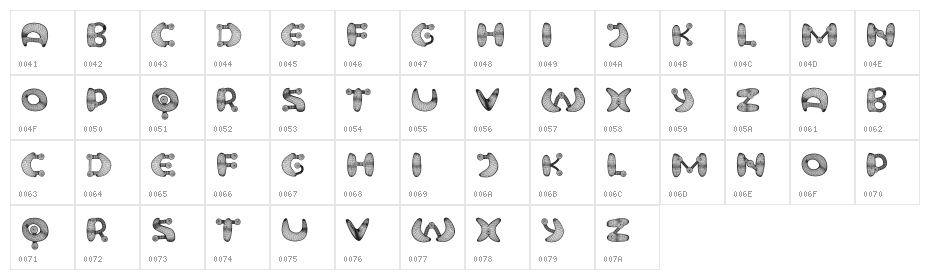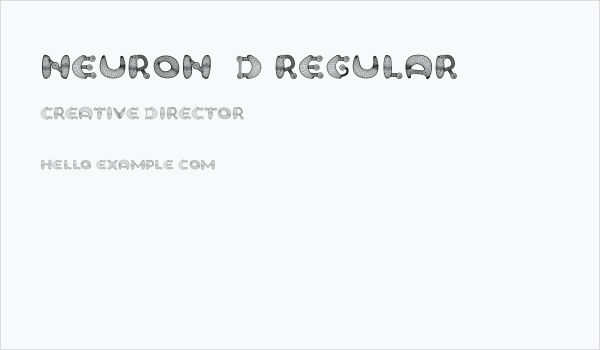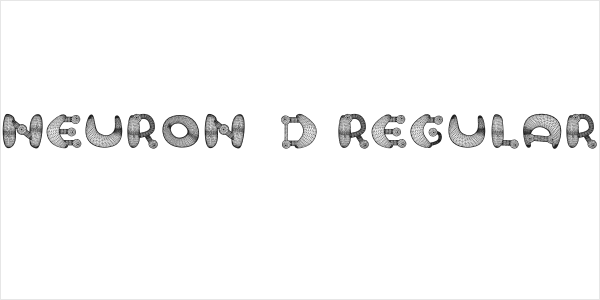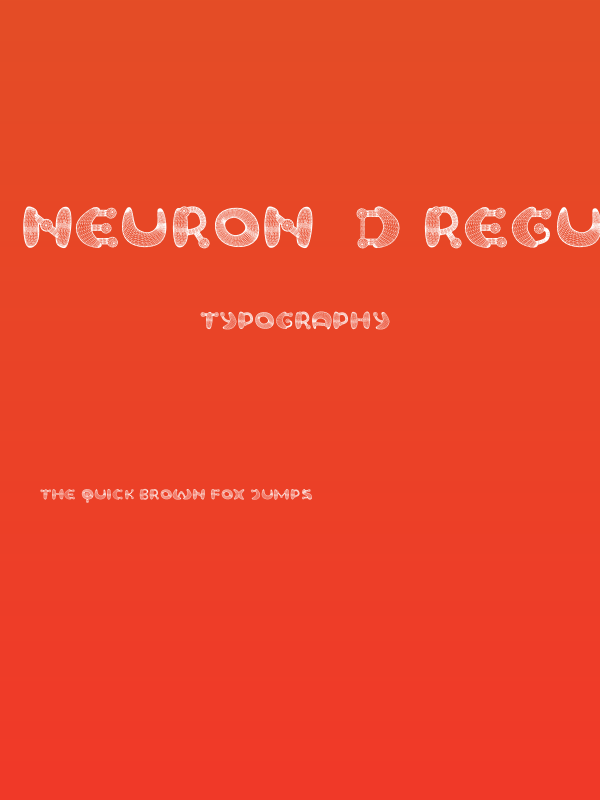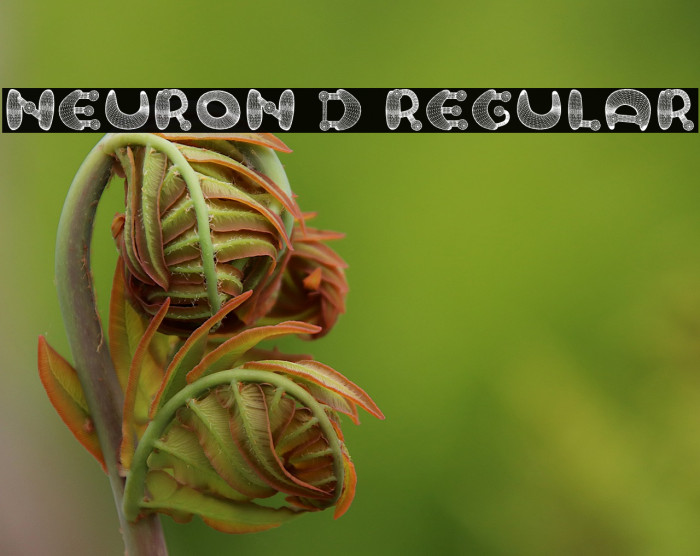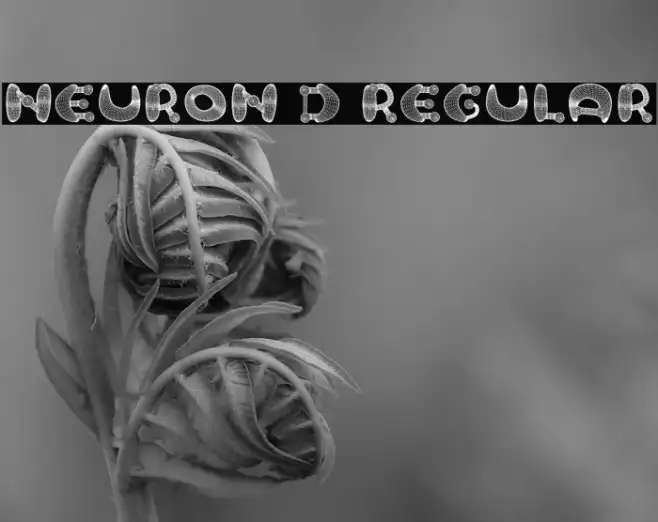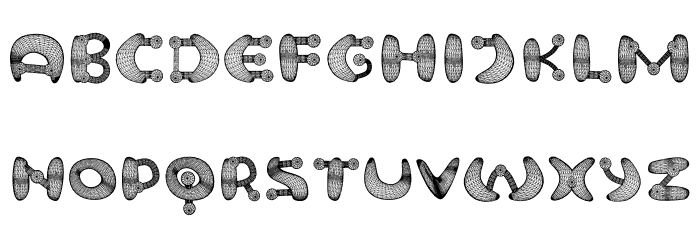
Neuron 3D Regular Font
Neuron 3D Regular Description
This font features a unique 3D design with a wireframe appearance, giving each character a textured and dimensional look. The letters are bold and rounded, with intricate line work that creates a sense of depth and movement. The style is highly decorative, making it stand out with its futuristic and abstract aesthetic. The characters maintain a consistent height and width, ensuring uniformity across the typeface. This font is particularly eye-catching due to its complex structure and the illusion of volume it creates, making it suitable for creative and artistic projects.
| Overall Style | Futuristic, Decorative |
| Proposed Projects | Ideal for use in digital art, posters, album covers, and any project requiring a standout, artistic typeface. |